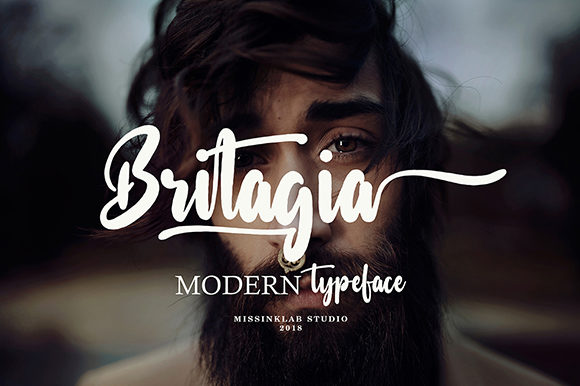
The Designer’s Delight: A Deep Dive into Britagia Font
I’ll never forget the time I was working on a project for a client’s craft business, and I was struggling to find the perfect font to match their brand’s playful yet elegant vibe. That’s when I stumbled upon Britagia Font, and it instantly became my go-to. In this article, I’ll share my experience with this beautiful font, its features, and how to make the most of it in your designs.
An Honest Review of Britagia Font
Britagia Font has quickly become a favorite in my design arsenal, and for good reason. Here’s what I love about it:
- ✨ Smooth and elegant feel: Britagia has a beautiful, smooth quality that makes it perfect for a wide range of design projects.
- ✅ Cute and playful vibe: This font has a playful, whimsical feel that’s perfect for crafty, DIY, or handmade projects.
- 💕 Versatile: Britagia works well in both digital and print designs, from social media graphics to business cards and brochures.
Of course, no font is perfect, and here are a few quirks to keep in mind:
- 🤔 Limited multilingual support: While Britagia supports some non-English characters, it’s not extensive, so double-check if you need to use it for a multilingual project.
- ⚠️ May not be suitable for very formal projects: Britagia’s playful vibe might not be the best fit for very formal or corporate designs.
The Story Behind Britagia Font
Britagia Font was designed with love and care by a talented type designer who aimed to create a font that feels both smooth and authentic. The font’s creator drew inspiration from classic handwriting styles, infusing it with a modern twist to make it versatile and fun to use.
| Does Britagia support non-English characters? | Britagia has some support for non-English characters, but it’s limited. If you need to use it for a multilingual project, double-check the font’s capabilities. |